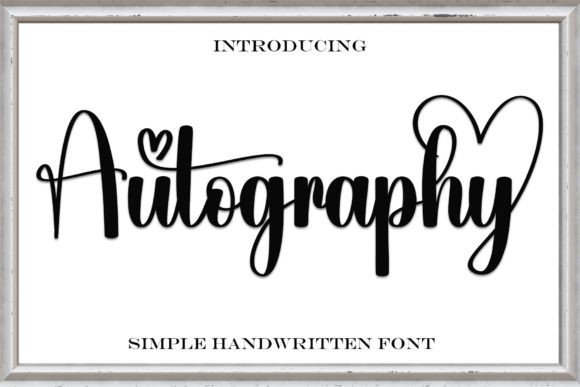
The Magic of Autography Font: A Designer’s New Best Friend
It’s happened to the best of us: you’re working on a holiday project, pouring your heart into a card or decoration, and suddenly, it all feels flat. The message is lovely, but something’s missing. That’s when I discovered Autography Font, a charming handwritten font that instantly added a warm, festive feel to my designs. In this article, I’ll share my experience with Autography, its features, and how to make the most of it in your creative projects.
A Personal Design Moment: Finding the Perfect Font
I recall working on a custom holiday card for a client who wanted something cozy and inviting. I tried several fonts, but none seemed to capture the right spirit. That’s when I stumbled upon Autography Font. Its flowing letters and warm feel immediately resonated with me, and I knew I’d found the perfect fit. The client loved it, and I’ve been hooked on Autography ever since.
What I Love About Autography Font ✨
- ✅ Warm and festive feel that’s perfect for holiday designs
- ✅ Flowing letters that bring a personal touch to messages
- ✅ Easy to read, even in smaller sizes
- ✅ Highly versatile, suitable for cards, decorations, and more
- ⚠️ Some letters may appear a bit inconsistent in size, but this adds to the handwritten charm
- ⚠️ Limited availability of stylistic alternates, but the font still offers great flexibility
The Story Behind Autography Font: Designer Inspiration
Autography Font was created with the intention of capturing the warmth and personality of handwritten letters. The designer aimed to create a font that would bring a sense of coziness and festivity to holiday designs, making it perfect for cards, decorations, and more. While the actual design process may be shrouded in mystery, it’s clear that Autography Font was crafted with love and attention to detail.
Q: What type of designs is Autography Font best suited for?
A: Autography Font is perfect for holiday designs, such as cards, decorations, and seasonal greetings. Its warm, festive feel makes it ideal for creating cozy and inviting designs.
Q: Does Autography Font support OpenType features?
A: Yes, Autography Font supports OpenType features, including ligatures and glyphs. You can access these features in compatible design software, such as Adobe Creative Cloud.